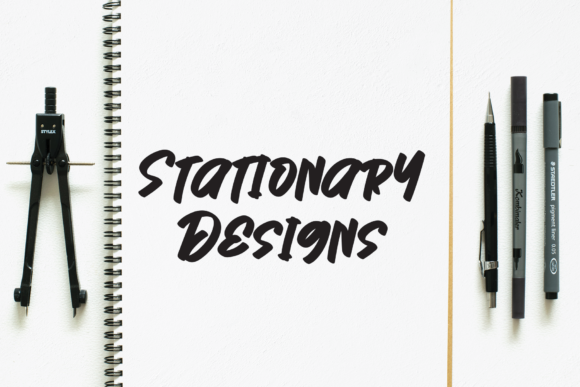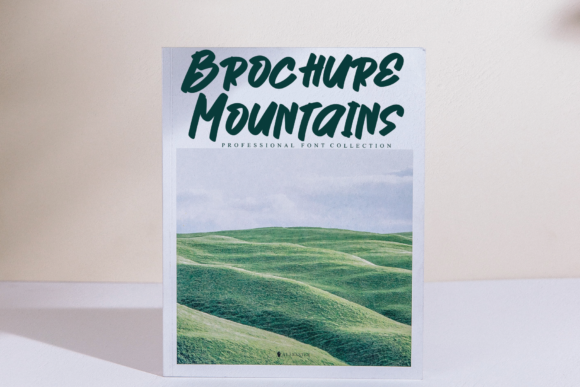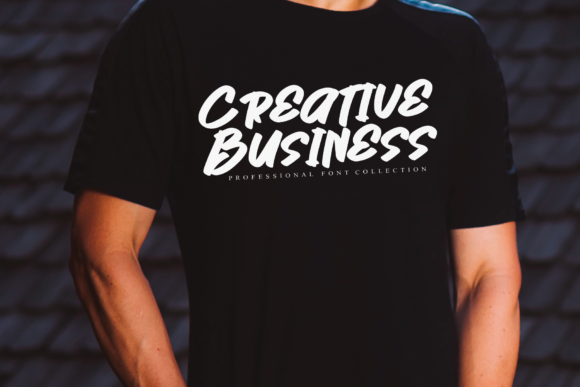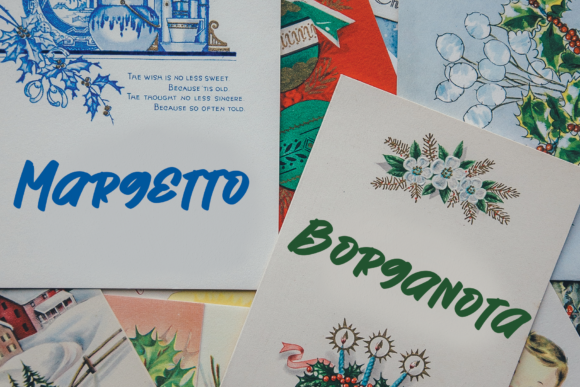
About Forest Font
Forest is a cool, paint brushed and adaptable handwritten font. Add it confidently to your favorite creations and let yourself be amazed by the outcome generated.